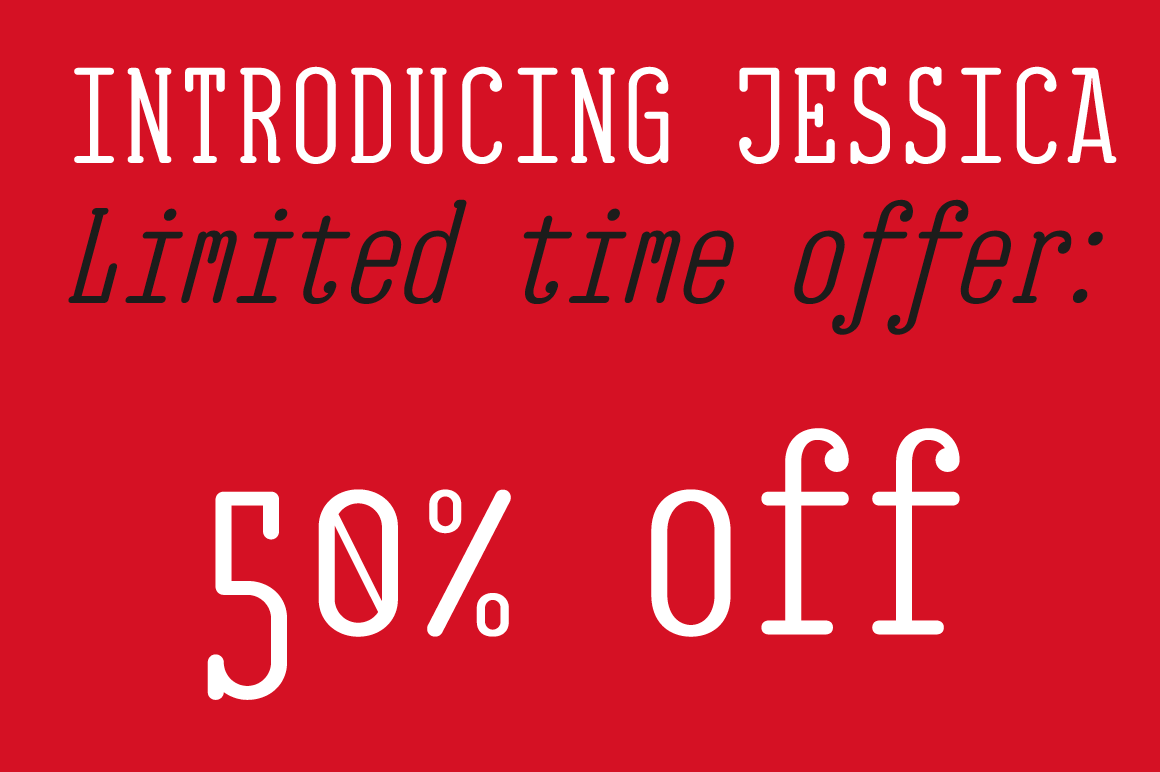
Jessica is a monospaced typewriter face with a sinister mood and peculiar features. But on the other hand, it comes equipeed with some Open Type programming and an extended character that set covers most European languages.